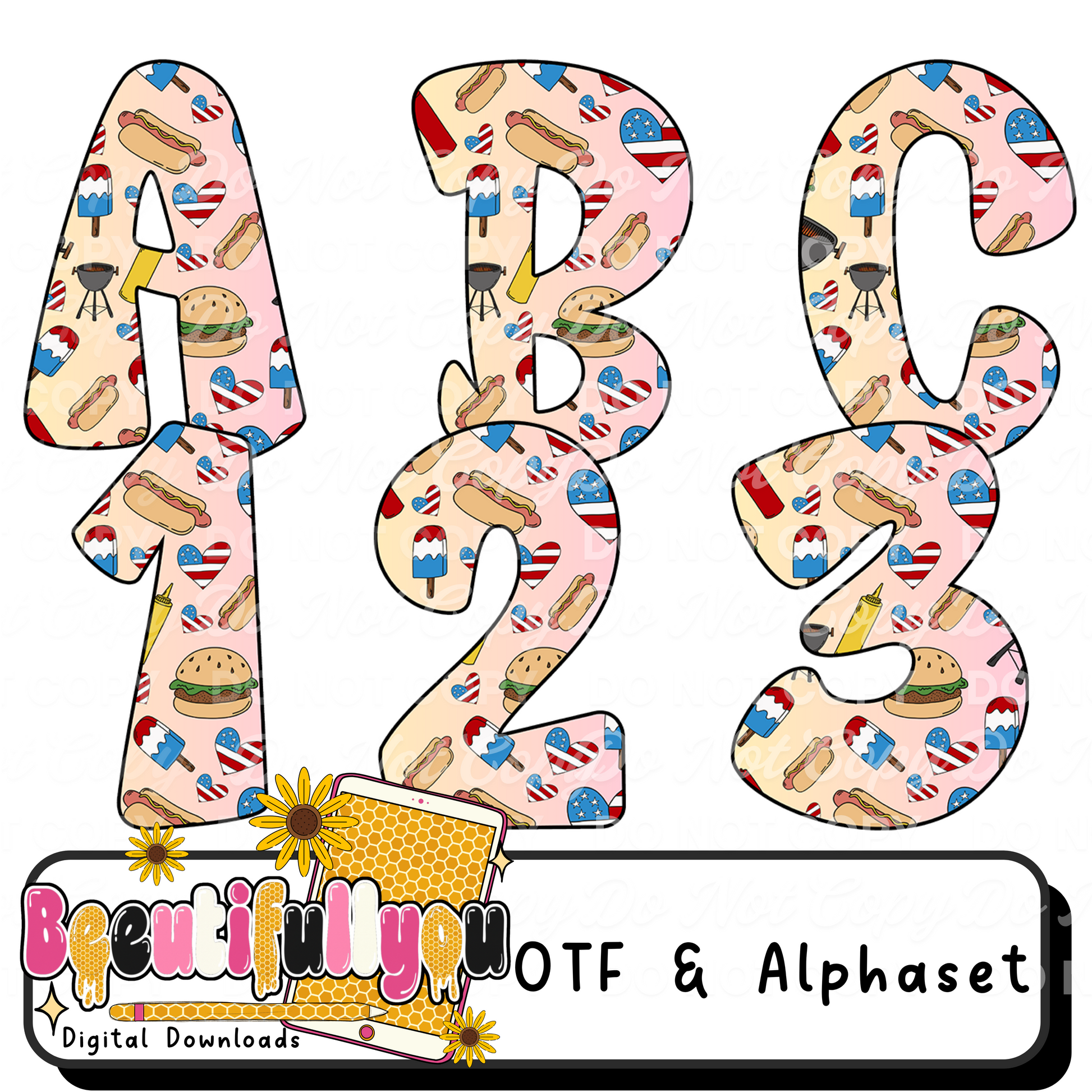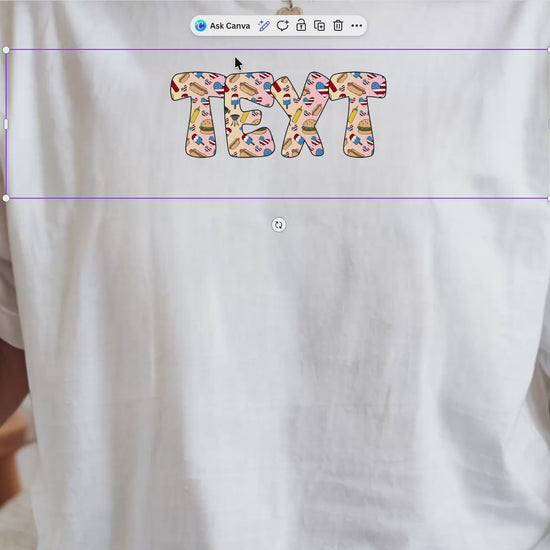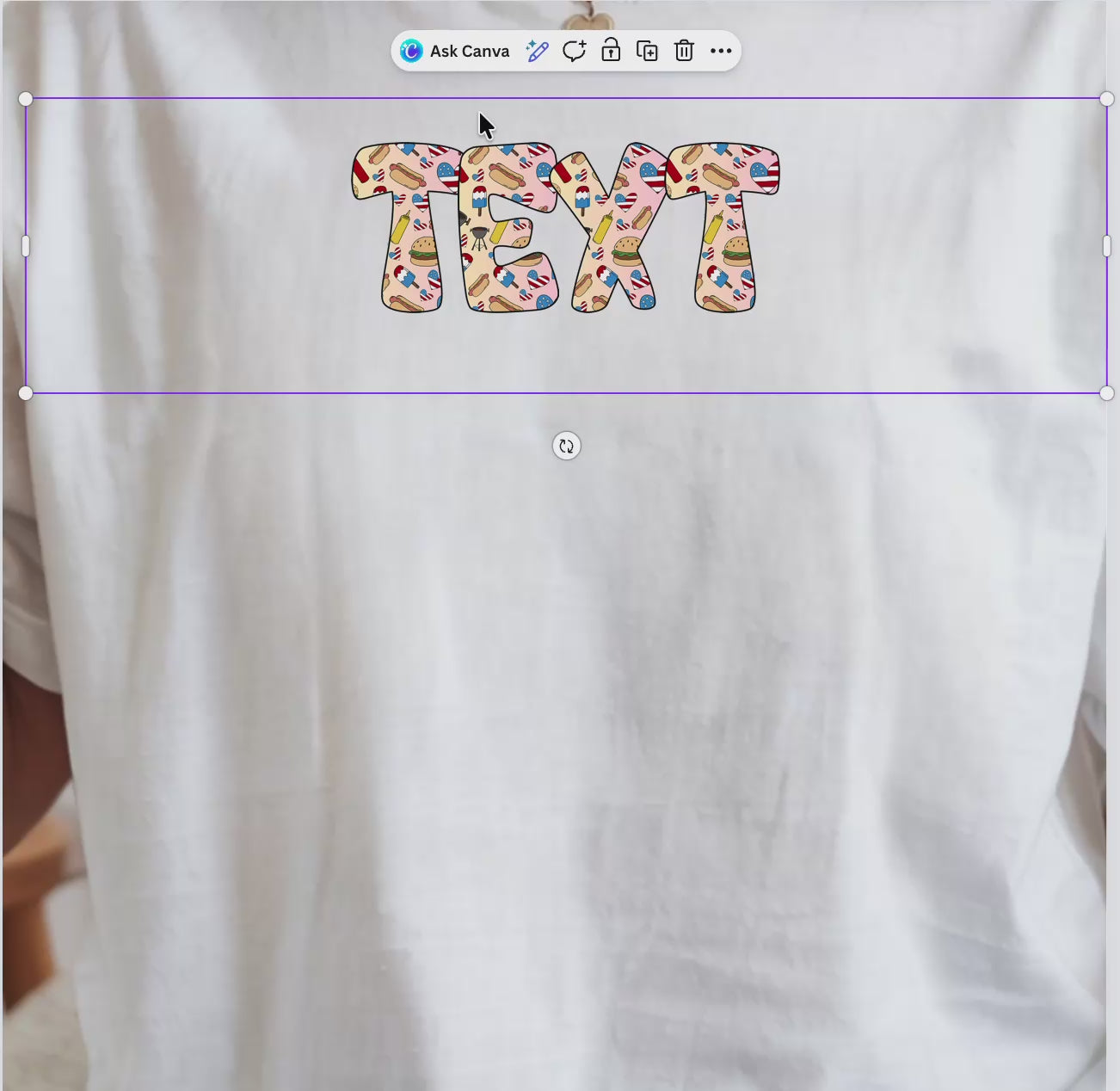
Patriotic Cookout Font Bundle | 4th of July Alphabet PNG + OTF | BBQ Letters & Numbers Set
šŗšøš„ The ultimate summer cookout vibe⦠in a font.
This fun, hand-drawn patriotic cookout-themed font bundle features bold letters filled with classic summer icons like burgers, hot dogs, popsicles, grills, and stars ā perfect for creating eye-catching designs your customers will LOVE.
Designed for makers who want something playful, seasonal, and high-converting for summer + July 4th drops.
⢠Colors/design elements are built into the font